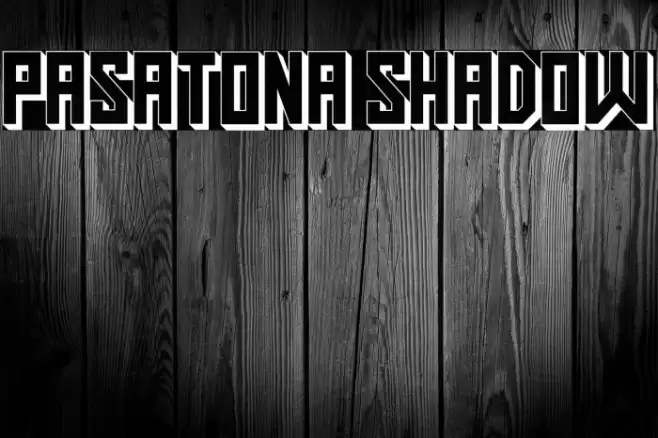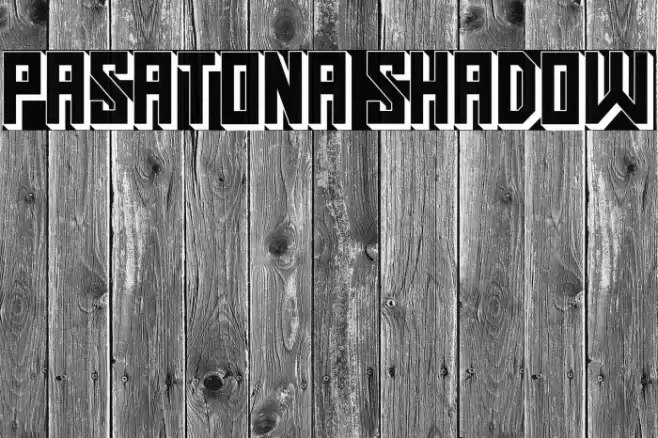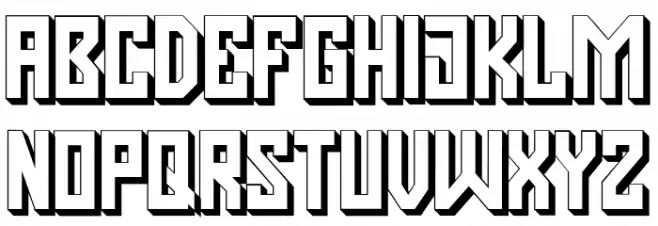
Pasatona Shadow Font
Pasatona Shadow Description
This font features a bold, geometric design with a distinct shadow effect that gives it a three-dimensional appearance. The characters are constructed with sharp, angular lines and a consistent thickness throughout, creating a strong and impactful visual presence. The shadow adds depth and a sense of movement, making it ideal for attention-grabbing headlines or titles. The uppercase letters are uniform in height and width, contributing to a cohesive and structured look. The style is reminiscent of retro or vintage designs, yet it maintains a modern edge due to its clean lines and precise execution. This font is particularly suited for projects that require a bold statement or a dynamic visual element.
A bold, geometric font with a shadow effect, ideal for impactful headlines from Uncategorized fonts.
- Proposed Projects: Perfect for posters, logos, branding, and any design needing a bold, dynamic look.
- Overall Style: Modern, Retro